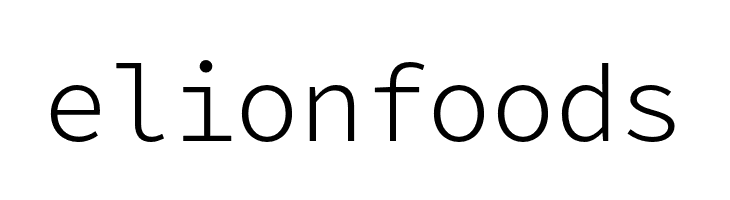
A clean, monospaced font with a modern aesthetic and excellent readability.
A modern, monospaced italic font with medium contrast and clean lines.
A bold, monospaced typeface with a clean and modern design.
A bold, italic, monospaced font with medium contrast and modern style.
A modern, monospaced italic font with a technical and futuristic style.
A bold, monospaced font with geometric lines and uniform character width.
A clean, geometric monospaced font ideal for technical and modern applications.
A modern, monospaced font with a clean and precise design.
A modern, monospaced font with consistent stroke weight and geometric design.
A monospaced font with a geometric and technical style.
A monospaced, futuristic font with geometric, rounded characters.
A modern, monospaced font with a clean and minimalist design.
A modern, monospaced font with excellent readability and uniform spacing.
A modern, monospaced typeface with uniform character width and clean, geometric shapes.
A monospaced, italic font with a modern and clean design.
A clean, modern monospaced font with uniform character width and minimalist design.
A clean, modern monospaced font with uniform character width and geometric design.
A thin, oblique, monospaced font with a modern and sleek design.
A modern, monospaced, extra light italic font with elegant curves.
A modern, monospaced italic font with medium weight and balanced contrast.
A monospaced, oblique font with a modern, technical look.
A modern, monospaced font with a clean and geometric design.
A light, monospaced italic font with a modern and elegant style.
A thin, italicized monospaced font with elegant, consistent strokes.
A light, oblique, monospaced font with a modern, clean design.
A modern, monospaced typeface with an extra-light weight and geometric design.
A modern, thin monospaced font with clean lines and consistent spacing.
A modern, oblique, monospaced font with an extra light weight and low contrast.
A monospaced italic font with a modern, elegant style.
A monospaced, oblique font with consistent stroke weight and clear readability.
A bold, monospaced font with uniform stroke width and rounded edges, ideal for technical use.
A bold, oblique, monospaced font with a modern and clean design.
A modern, monospaced font perfect for coding and technical documents.
A modern, monospaced font with clear legibility and uniform spacing.
A modern, monospaced typeface with clean lines and uniform spacing.